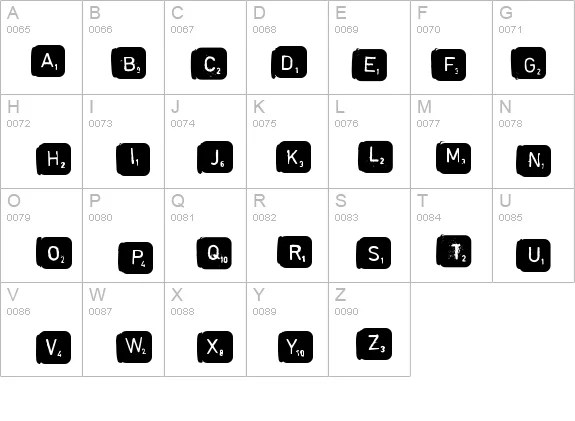
Scrabble tiles scrabble is played with exactly 100 tiles. Free printable scrabble letters and tiles for woodworking projects, cricut machines, diy crafts, etc. Scrabble font | dafont.com english français español deutsch italiano português.
Use these patterns and stencils to spell out your family name or create unique word art. It will slice the number out of the tile so you can use it in the way you described. We reached out directly to hasbro, makers of the scrabble board game, and they told us that the official font for scrabble tiles is eurostile.
The Most Common Scrabble Tiles Font Is Arial, Although If You Have Access To It, Montserrat Is A Great Option As Well.
Size scrabble by eyesaw fontz. For more ideas see cool fonts and easy text generator. We reached out directly to hasbro, makers of the scrabble board game, and they told us that the official font for scrabble tiles is eurostile.
Free tiles by intellecta design. There’s a total of 60 wooden letters a to z including two blank tiles. The official scrabble history page talks about how they stamped individual letter tiles at first, but there’s no specific mention of which font they chose.
Scrabble font | dafont.com english français español deutsch italiano português. Looking for scrabble tiles fonts? According to hasbro the makers of scrabble, the font on the tiles is eurostile and on the scrabble board it is interstate bold.